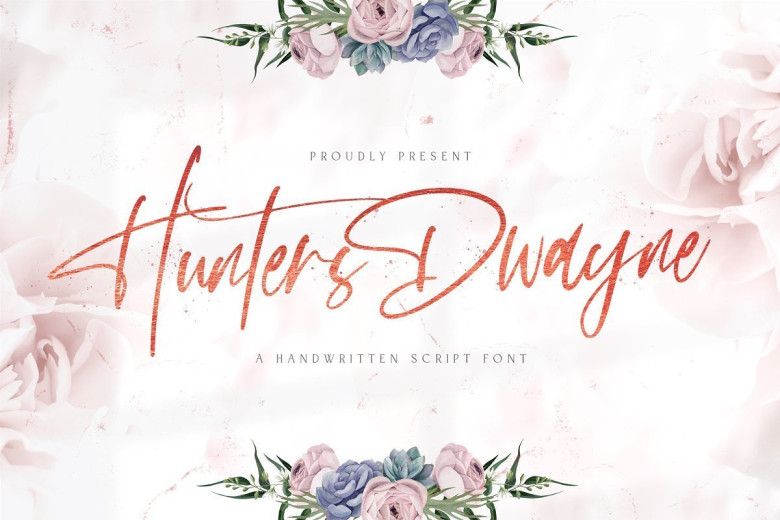
Hunthers Dwayne Handwritten Signature Font
Introducing Hunthers Dwayne – Handwritten Signature Font, Hunthers Dwayne is a delicate, elegant and flowing handwritten script font. It has beautiful and well balanced characters and as a result, it matches a wide pool of designs. Add it to your most creative ideas and notice how it makes them come alive!
It contains a full set of lower & uppercase letters, a large range of punctuation, numerals, and multilingual support. Hunthers Dwayne Font: offers beautiful typography harmony for a variety of project design, including logo and branding, wedding design, social media posts, advertising, product design etc.